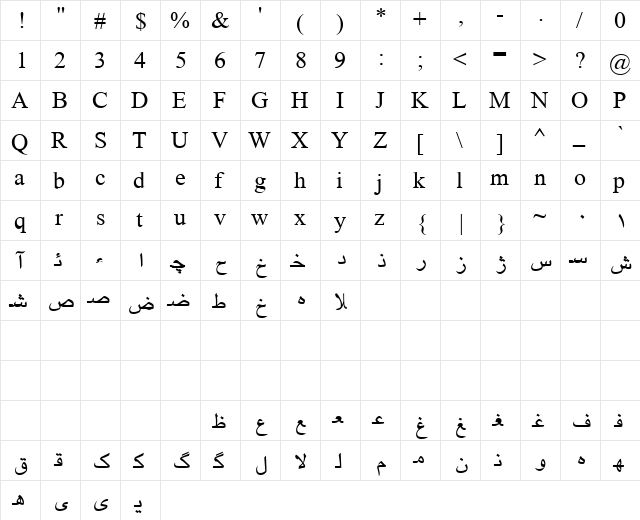
Sepehr Normal
Design Context for Sepehr Typeface
Sepehr is a composed and adaptable typeface that performs quietly and consistently across a wide range of design contexts.